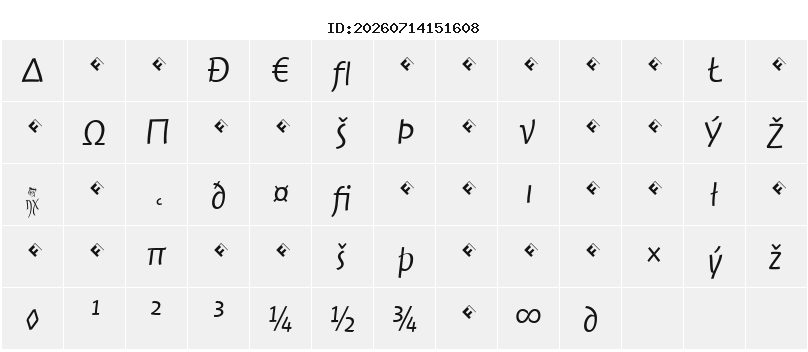
• Font Name: JambonoTF-LightExpert
• Full Font Name: JambonoTF-LightExpert
• PostScript Name: JambonoTF-LightExpert
• Manufacturer: Xavier Dupre published by FontShop International for the FontFont library
About JambonoTF-LightExpert.ttf